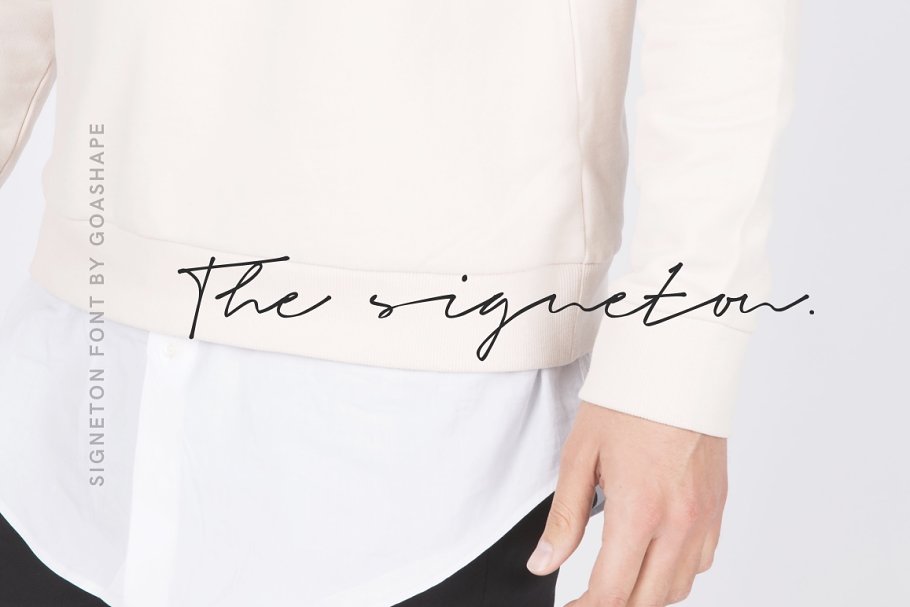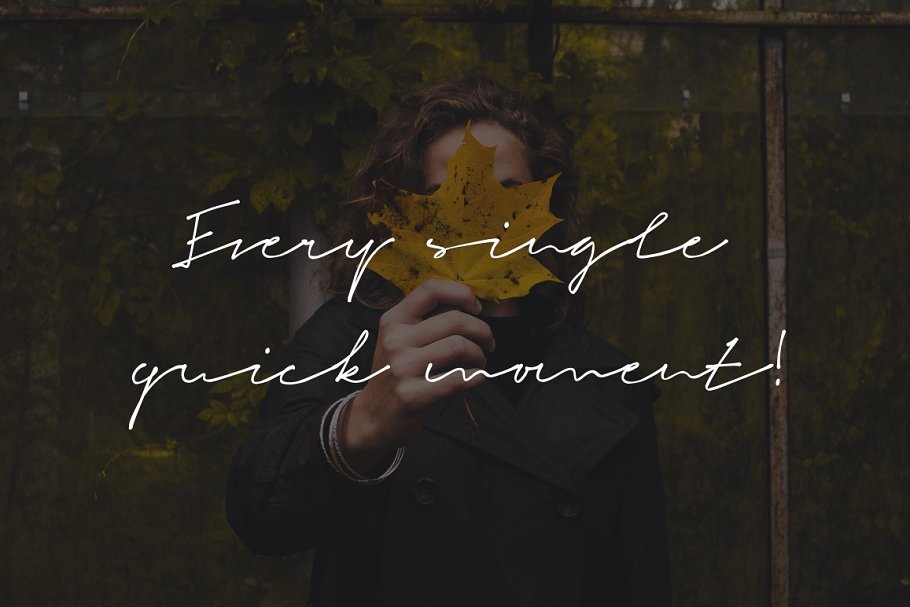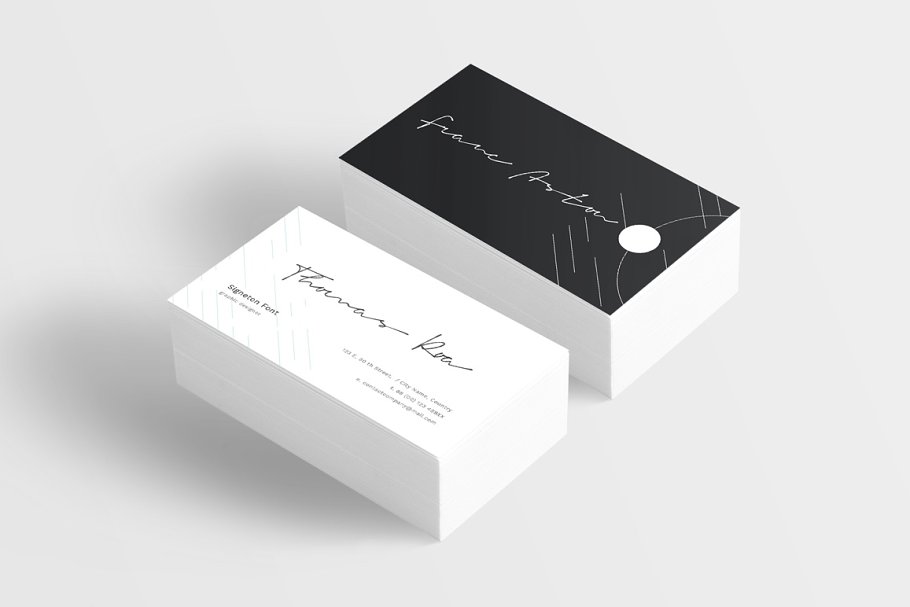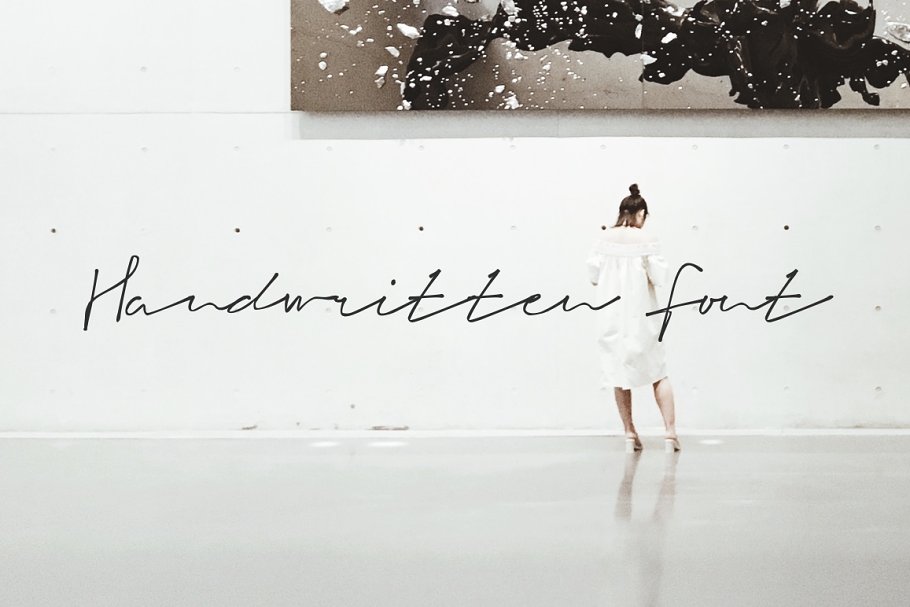
About the Signeton Signature Font
Give your designs an authentic handcrafted feel, Signeton is perfectly suited to signature, stationery, logo, typography quotes, magazine or book cover, website header, clothing, branding, packaging design and more, A handwritten script font containing upper and lowercase characters, numerals and a large range of punctuation, Font are provided in TTF and OTF and WOFF formatsWe recommend installing the TTF files, and the OTF only if necessary